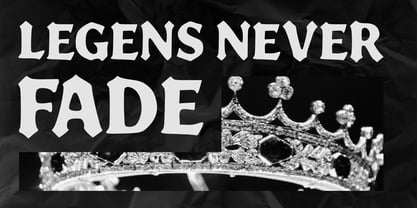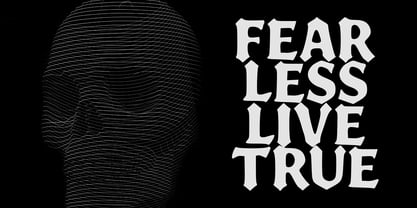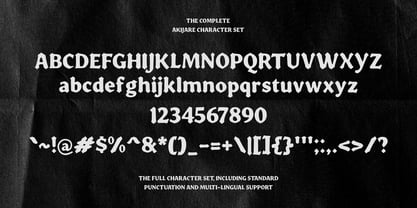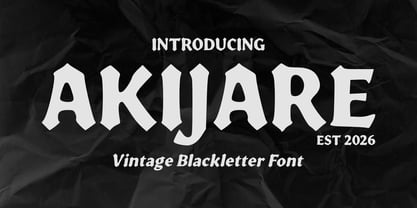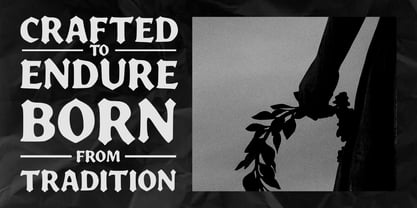
Akijare
by Mei Suseno
The Akijare Font Family was designed by Wahyu Eka Prasetya, Mei Suseno and published by Mei Suseno. Akijare contains 2 styles and family package options. More about this family
Akijare is a bold vintage blackletter font that combines classic Gothic influences with a clean, modern touch. Designed with strong strokes, sharp angles, and distinctive letterforms, this typeface delivers a timeless medieval aesthetic while maintaining excellent readability. Perfect for branding, logos, apparel, posters, packaging, album covers, tattoos, merchandise, book covers, gaming titles, and any project that demands a bold, historic, and authentic character. Whether you're creating retro-inspired designs or dark, dramatic visuals, Akijare adds a powerful and memorable presence to every composition.
Designers: Wahyu Eka Prasetya, Mei Suseno
Foundry: Mei Suseno